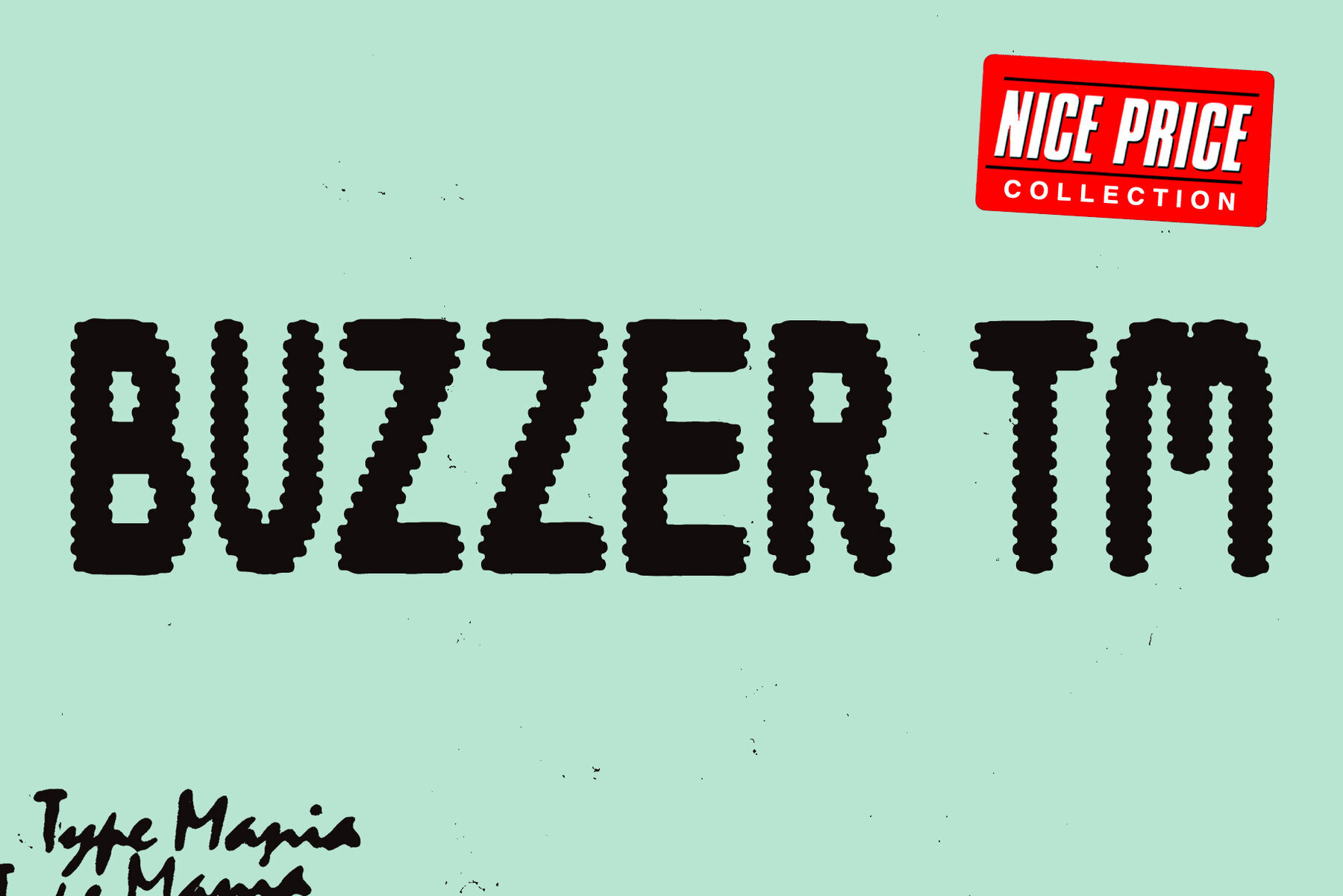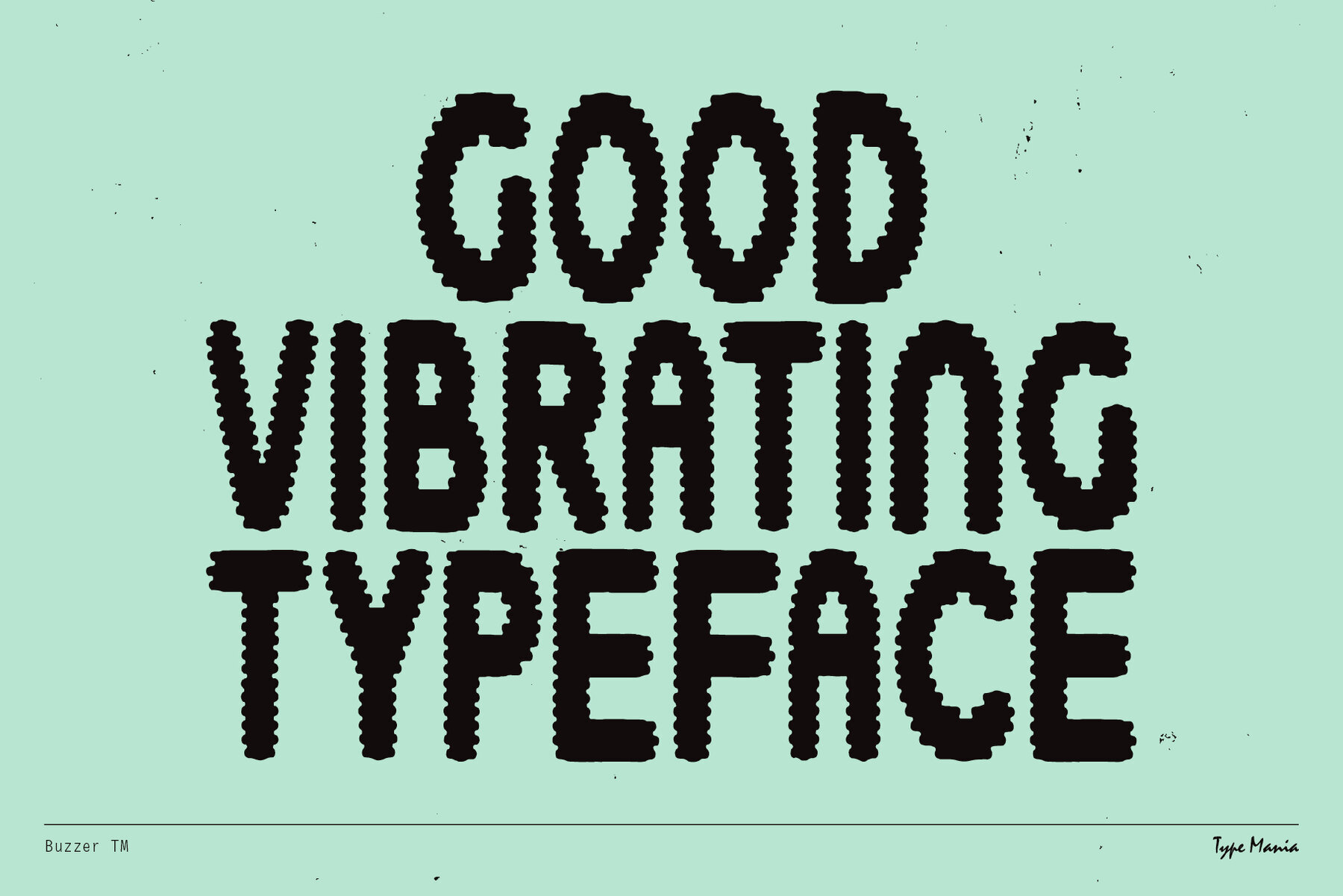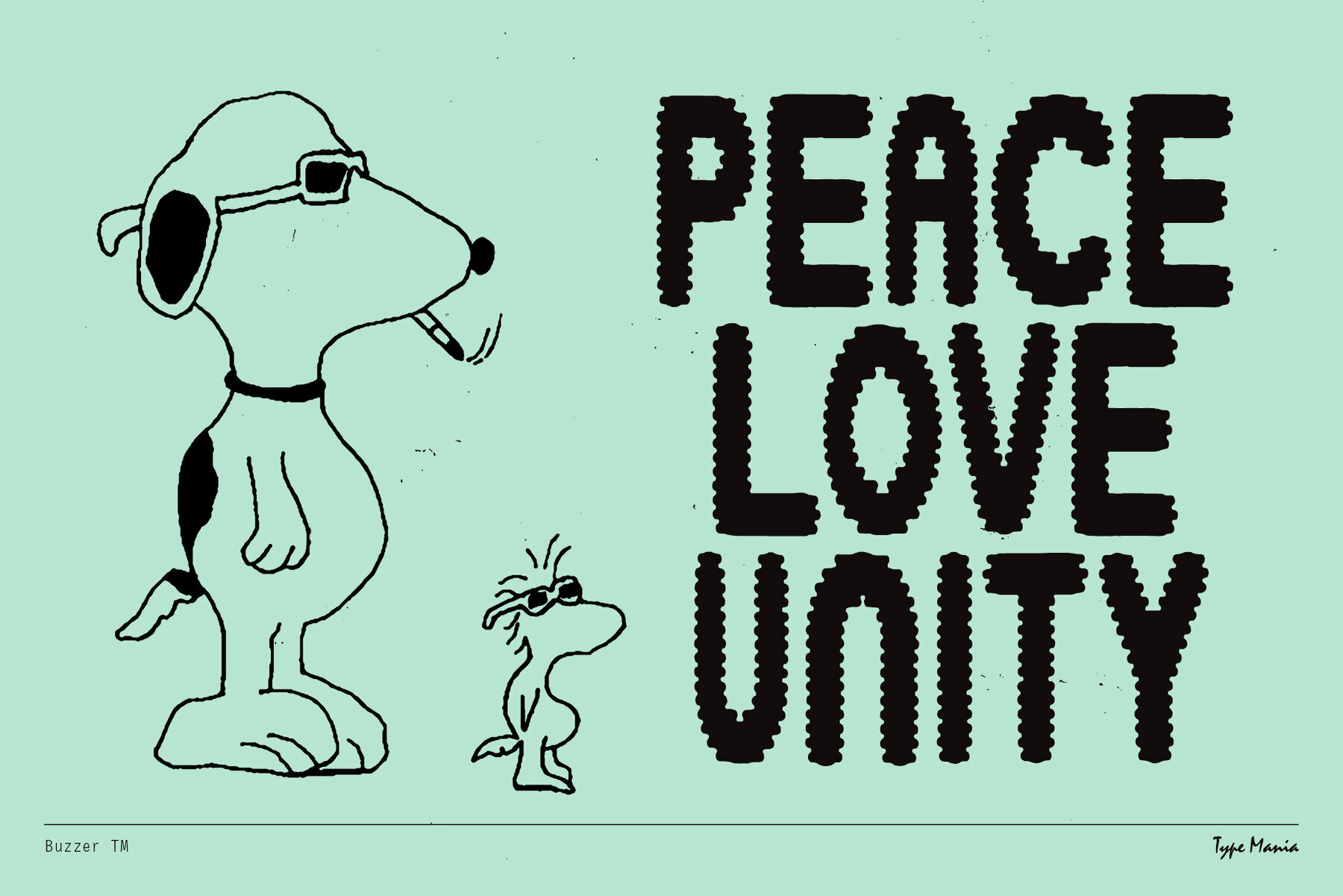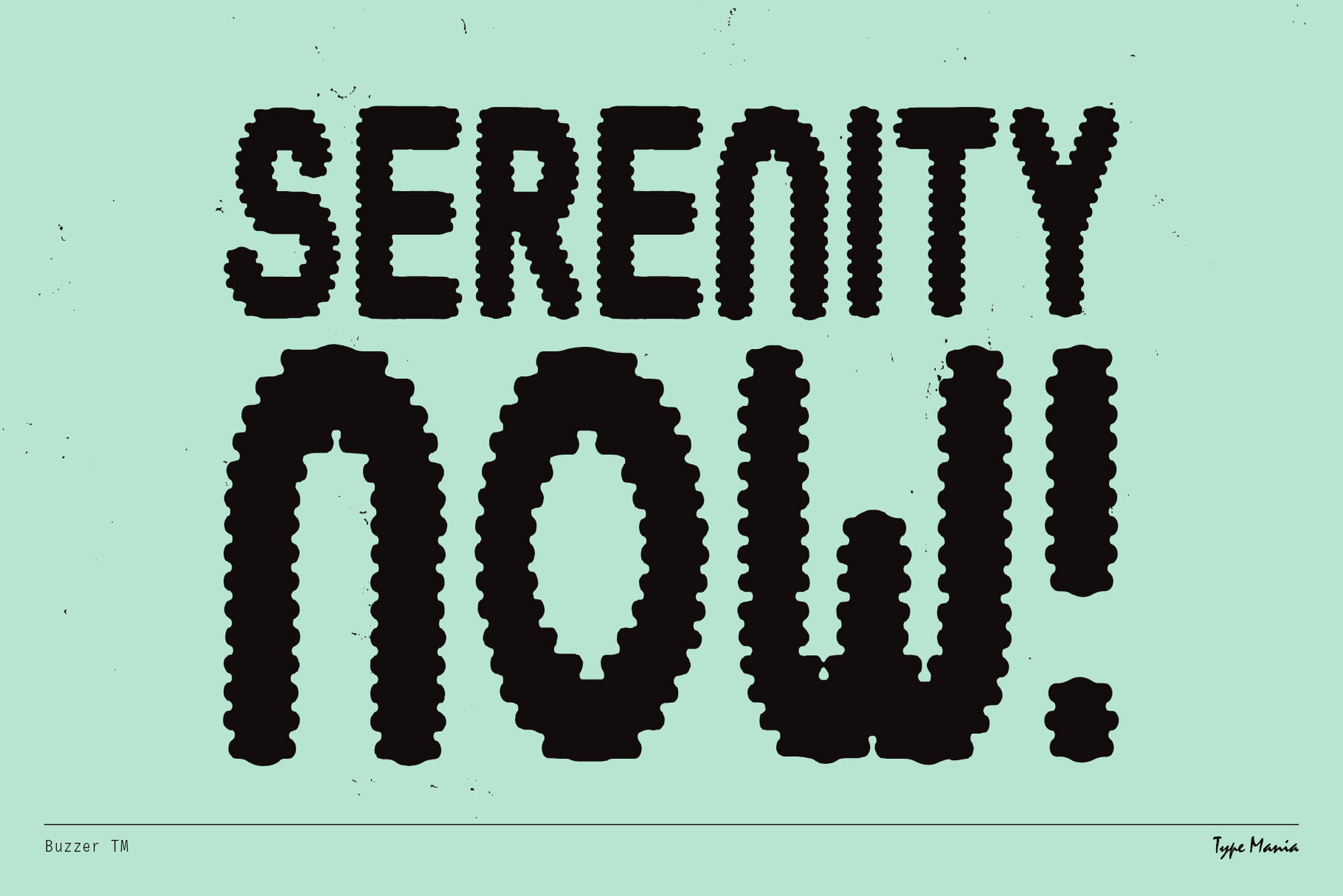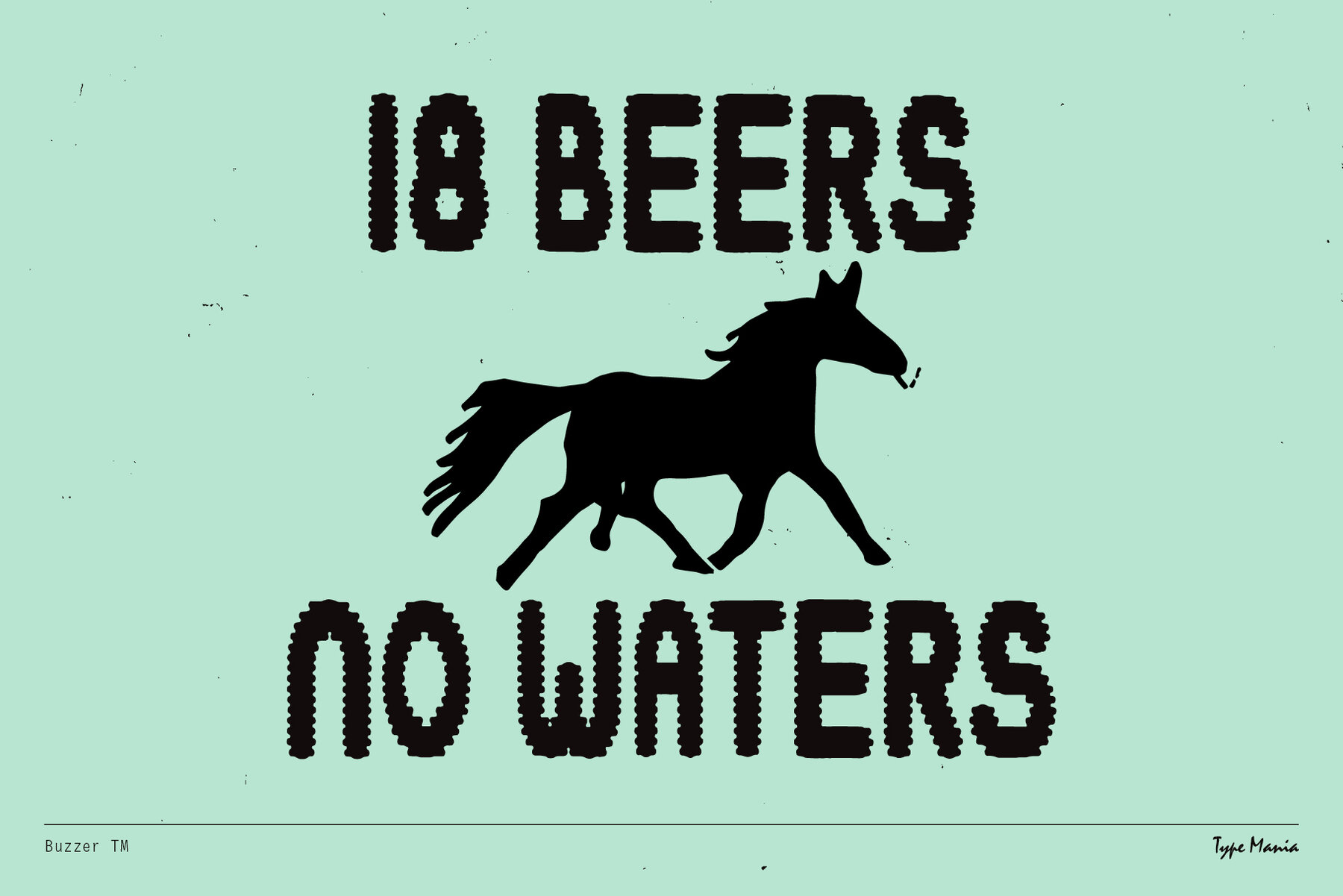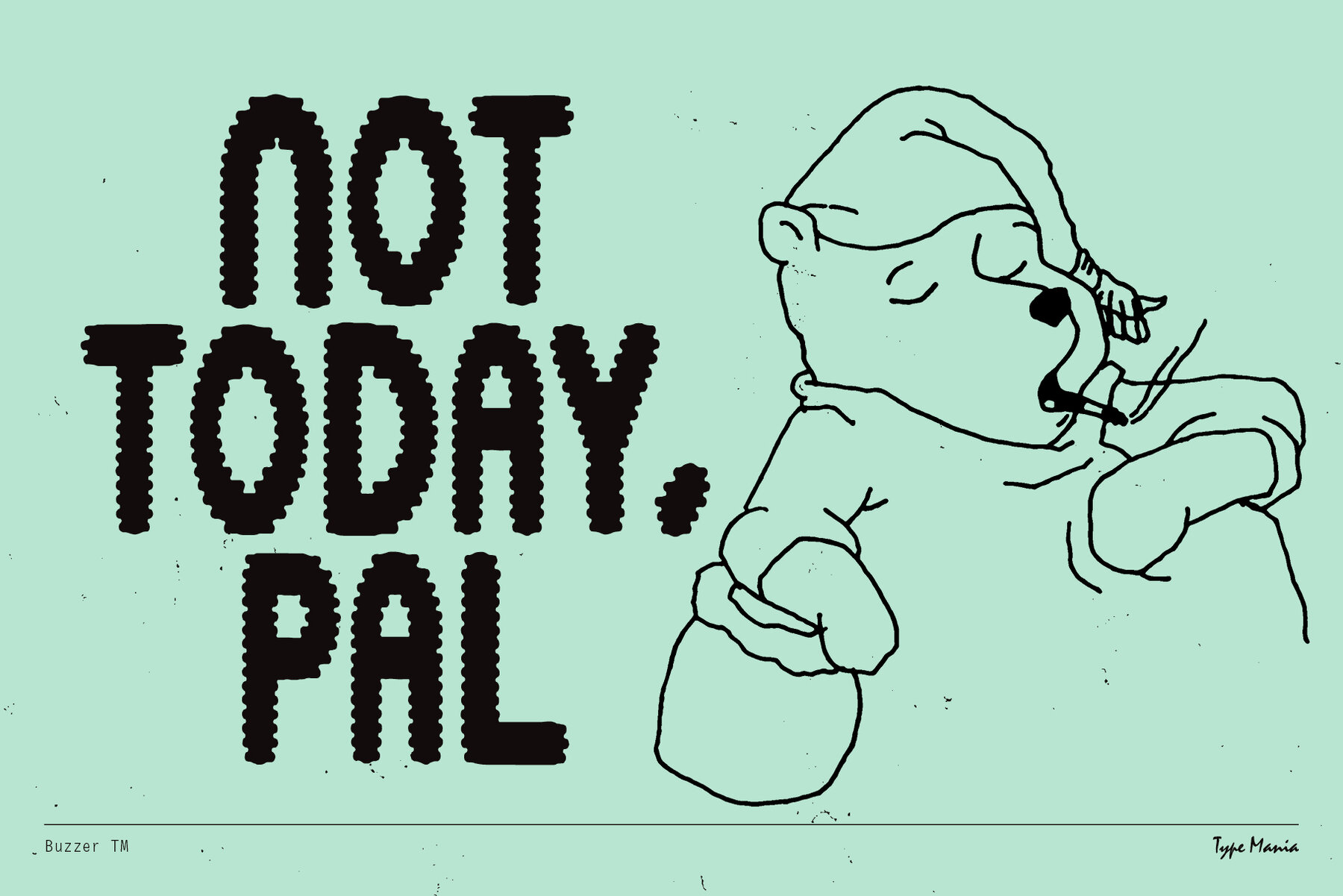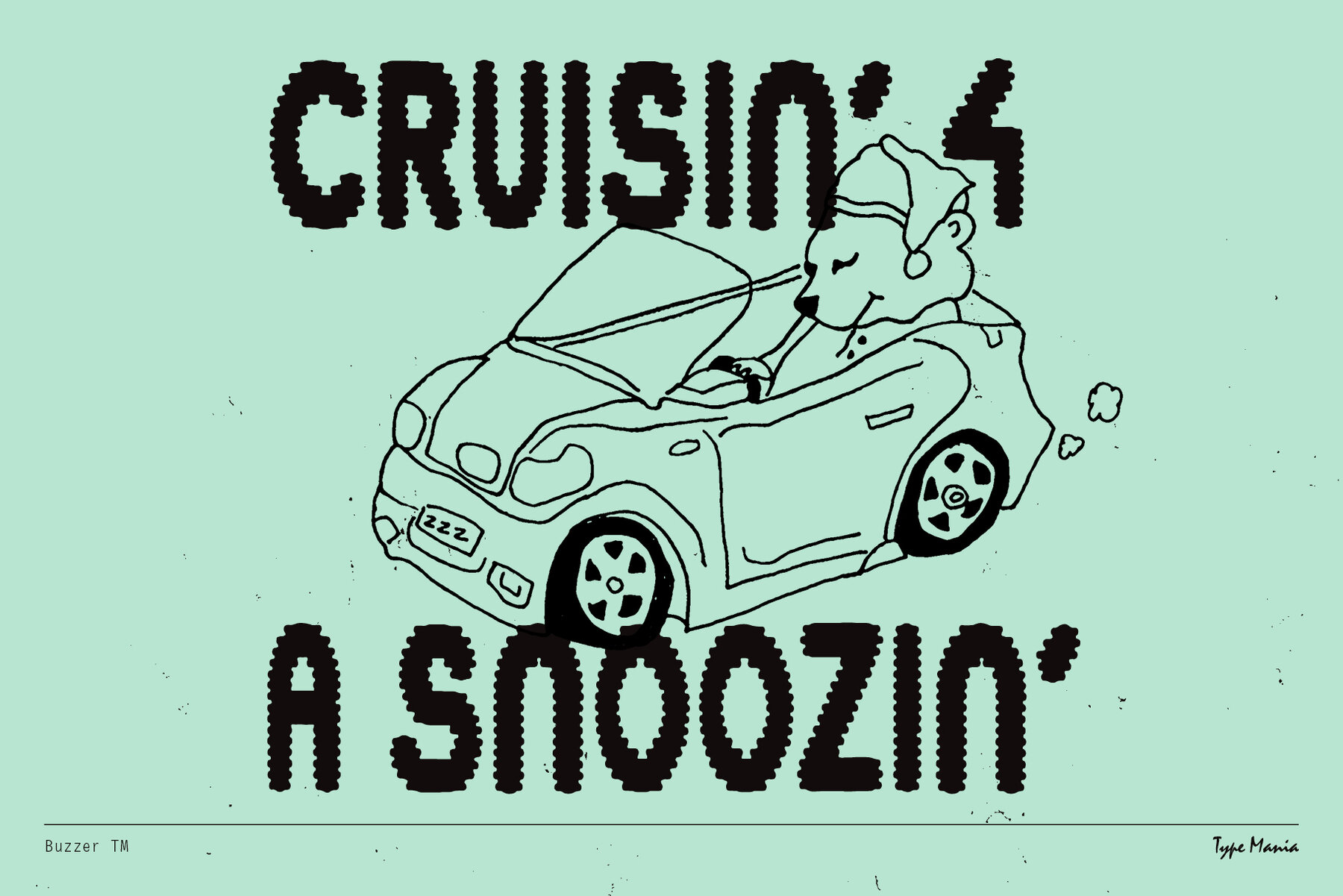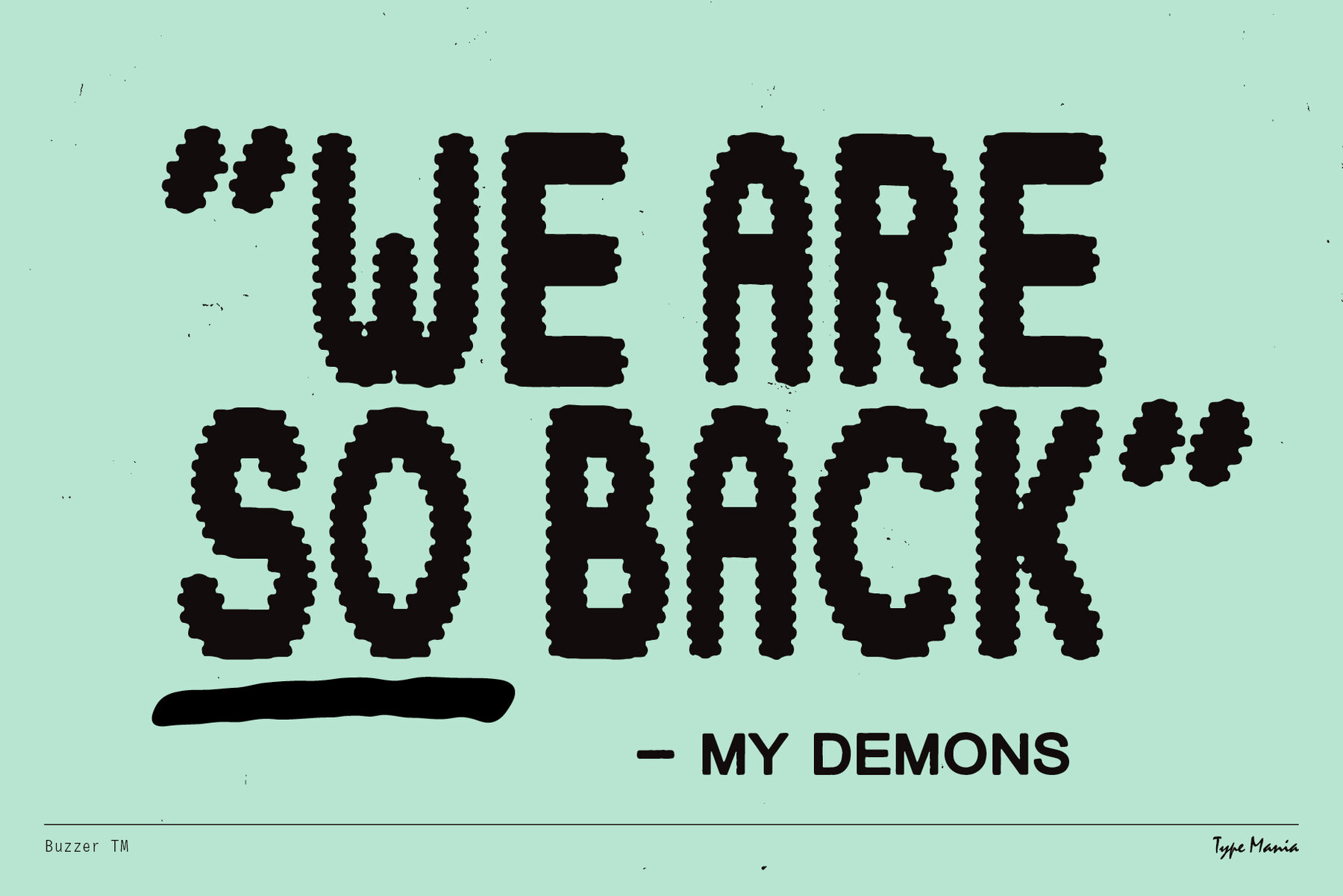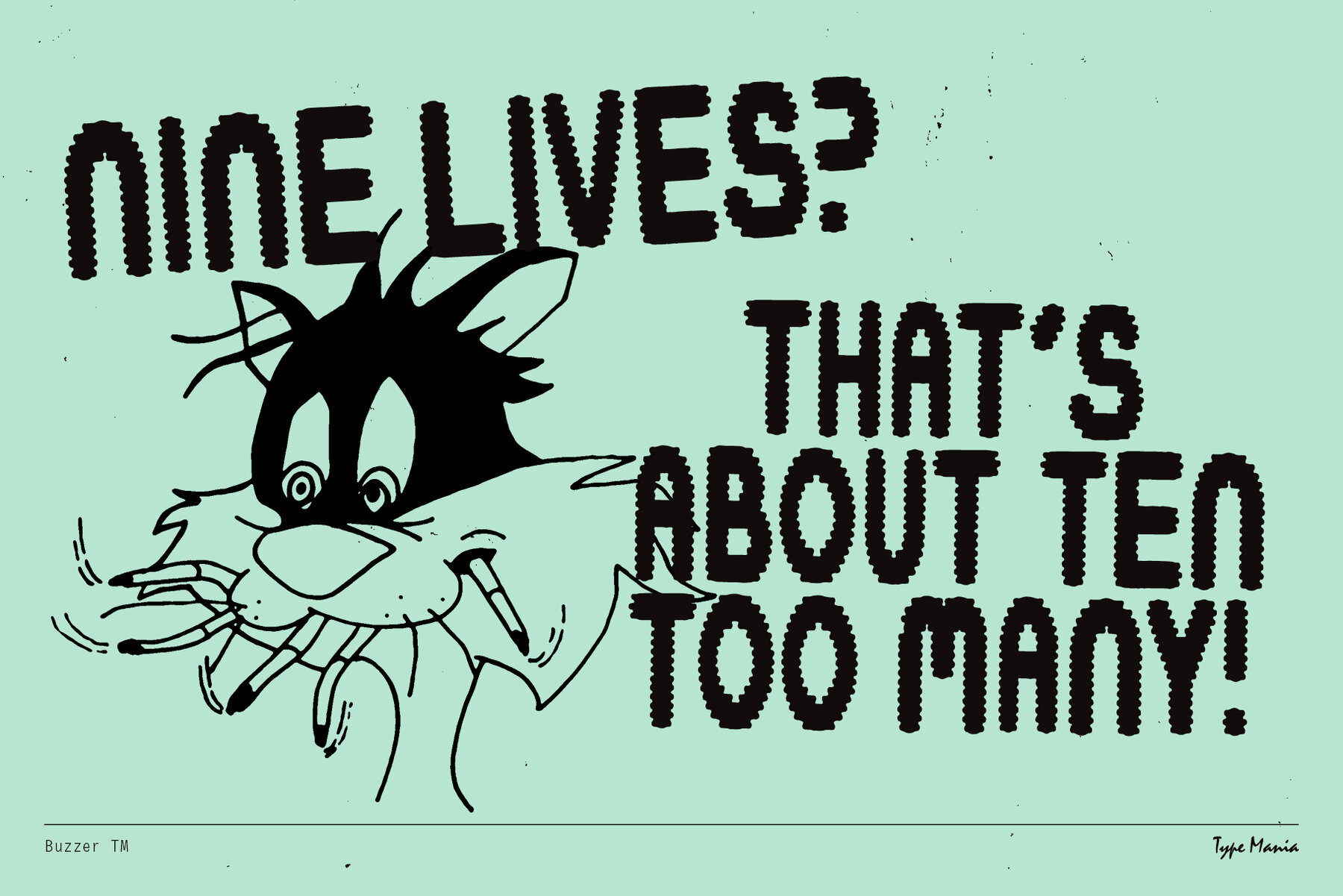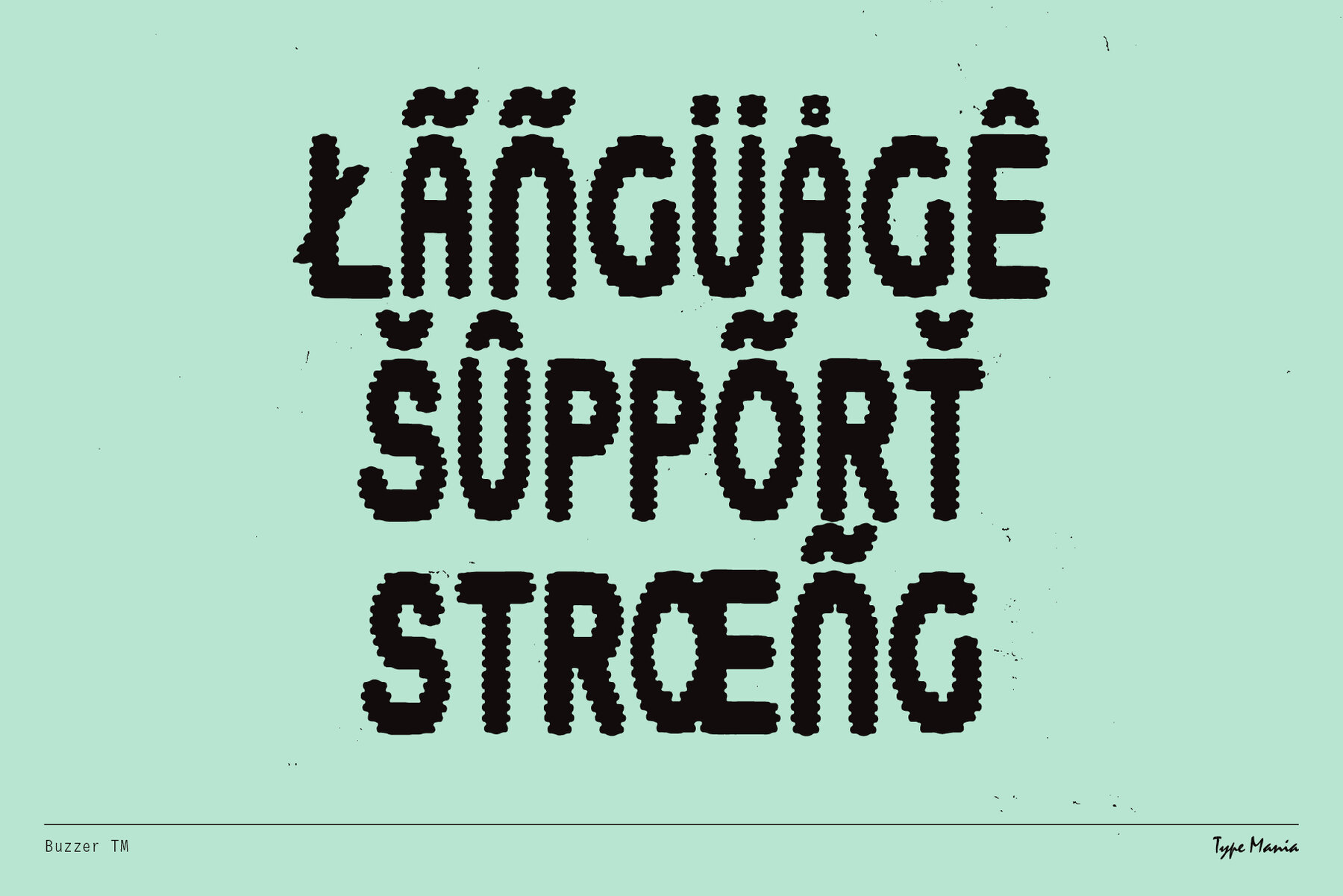
Buzzer TM is a dynamic sans serif font that infuses your text with energy and excitement. Ideal for flyers, posters, and any design project that demands attention, this jazzy typeface adds a lively and vibrant touch to your work. Buzzer TM supports a wide range of languages, including Basic Latin, Western European, Euro, Central European, and Pan African Latin, making it versatile for various international projects.
With its clean and modern design, Buzzer TM stands out in any context, providing a fresh and engaging look. Perfect for both digital and print media, this font ensures your message is conveyed with clarity and flair. Use Buzzer TM to elevate your designs, making them unmissable and full of character.